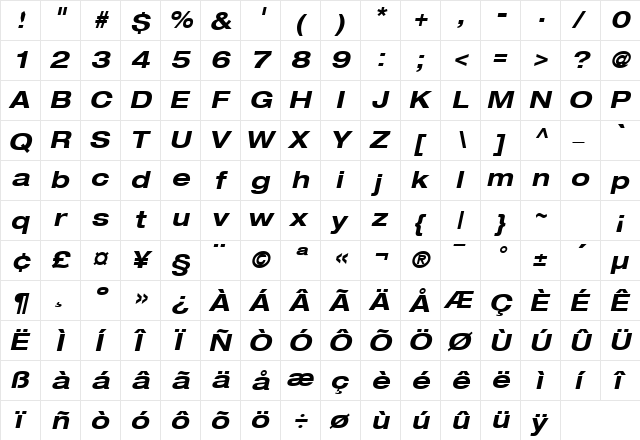
HeaveneticaExtd7 BoldOblSH Font Preview
HeaveneticaExtd7 BoldOblSH
Design Context for HeaveneticaExtd7 Typeface
HeaveneticaExtd7 offers clean, dependable letterforms without strong stylistic allegiance, making it a practical choice for designers who need flexibility. Its bold stroke weight gives it real presence on the page.